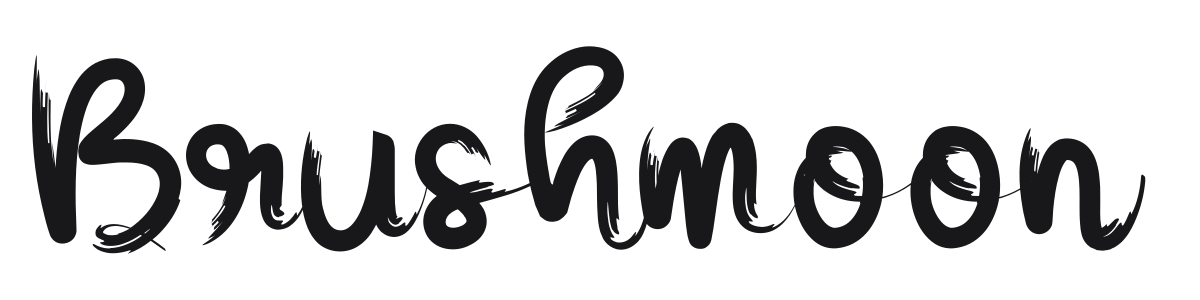
Brushmoon
Brushmoon is a casual brush script with rough bristle texture and loosely connected characters that feel genuinely hand-painted. The flowing joins and expressive swashes give it a lively, spontaneous energy without tipping into chaos. It reads best at headline sizes where the textured strokes can breathe.